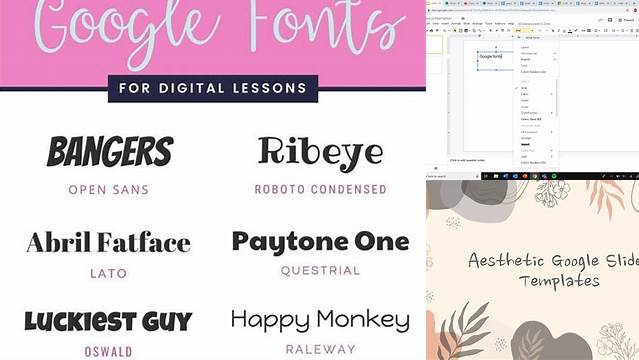
Aesthetic Fonts For Google Slides: Elevate Your Presentation
Hey guys! Ever feel like your Google Slides presentations are missing that certain something? You've got the content down, the data is solid, but the overall look just isn't popping? Well, you're definitely not alone! A huge part of making a presentation visually appealing is choosing the right fonts. Forget those boring, default options – we're diving into the world of aesthetic fonts that will instantly elevate your slides from drab to FAB! Think of fonts as the clothes your presentation wears; they set the tone, convey personality, and can even influence how your audience perceives your message. A sleek, modern font can signal professionalism and innovation, while a playful, handwritten font might be perfect for a more casual and creative presentation. The key is to find fonts that not only look great but also align with your content and brand. Trust me, selecting the right aesthetic fonts can make a world of difference, transforming your slides into a visual masterpiece that captivates your audience and leaves a lasting impression. We'll explore a range of options, from elegant serifs to clean sans-serifs and even some fun display fonts, so you can find the perfect fit for your next presentation. So, buckle up and get ready to discover a treasure trove of amazing fonts that will make your Google Slides shine! Remember, presentation design is an art, and fonts are your essential tools. Let’s get creative and transform your slides into something truly special. Finding the perfect font can be like finding the perfect pair of shoes for an outfit – it just ties everything together. So, ditch the basic fonts and let's explore the world of aesthetics to make your Google Slides stand out from the crowd. Let’s face it, in a world filled with information overload, grabbing and holding your audience's attention is crucial. And while compelling content is king, the visual presentation is the queen that helps make it reign! Aesthetic fonts play a vital role in this, adding a layer of visual interest and personality that keeps your viewers engaged.
Why Font Choice Matters in Google Slides
Font choice in Google Slides matters immensely, guys! It's not just about making words appear on a screen; it's about communication on a deeper level. Think of fonts as the voice of your presentation – they have a tone, a personality, and they contribute significantly to the overall message you're trying to convey. Imagine you're presenting on a cutting-edge tech topic using a clunky, old-fashioned font – it just wouldn't mesh, right? The font would actively detract from your message, making your presentation look dated and unprofessional. On the flip side, a sleek, modern font can instantly elevate your presentation, signaling innovation and sophistication. But it's not just about aesthetics, though that's a big part of it! Readability is also paramount. If your audience is squinting and struggling to decipher your text, they're going to miss the crucial information you're sharing. That’s why it’s essential to choose fonts that are not only visually appealing but also clear and easy to read, especially when projected on a larger screen. Consider the context of your presentation as well. Are you presenting to a formal business audience? A fun, casual group? Your font choices should reflect the tone and style appropriate for the setting. A playful, handwritten font might be perfect for a creative workshop, but it wouldn't be suitable for a board meeting. Furthermore, fonts contribute to your brand identity. If you're presenting on behalf of a company or organization, using fonts that align with your brand guidelines will help reinforce your brand image and create a cohesive look and feel. Consistency is key here – using the same fonts throughout your presentation and across all your marketing materials will build brand recognition and trust. So, when you're putting together your Google Slides, don't just grab the first font that catches your eye. Take the time to carefully consider your audience, your message, and your brand, and choose fonts that will help you communicate effectively and make a lasting impression. The right font choice can transform a good presentation into a great one. Remember, your slides are a visual representation of your ideas, and fonts are the brushstrokes that bring them to life.
Top Aesthetic Font Categories for Google Slides
Okay, let's dive into the top aesthetic font categories you can use to seriously upgrade your Google Slides! We've got a whole spectrum of styles to explore, from the classic elegance of serifs to the clean lines of sans-serifs, and even some fun and funky display fonts for when you want to make a statement. Finding the perfect font is like choosing the right instrument for a song – it sets the mood and enhances the overall experience. Let's break down some key categories: First up, we have Serif Fonts. These fonts are characterized by the small decorative strokes, or "serifs," at the ends of the letters. Serif fonts often convey a sense of tradition, authority, and sophistication. Think of them as the formal wear of the font world. In Google Slides, serif fonts are excellent for headings and body text when you want to create a polished, professional look. Some popular serif font choices include Lora, Playfair Display, and Merriweather. Next, we have Sans-Serif Fonts. These fonts are the modern, minimalist counterparts to serif fonts. They lack the decorative serifs, giving them a clean, streamlined appearance. Sans-serif fonts are often associated with clarity, simplicity, and modernity. They're incredibly versatile and work well in a variety of presentation contexts. Some top sans-serif fonts for Google Slides are Montserrat, Open Sans, and Lato. Then there are the Display Fonts. This is where you can really let your personality shine! Display fonts are designed to be eye-catching and attention-grabbing. They come in a wide range of styles, from bold and geometric to playful and whimsical. Display fonts are best used sparingly, for headings and titles, as they can be difficult to read in large blocks of text. For some fun options, try Oswald, Bebas Neue, or Lobster. Finally, we have Handwritten and Script Fonts. These fonts mimic the look of handwriting, adding a personal and creative touch to your slides. They're perfect for presentations that need a bit of warmth and authenticity. However, like display fonts, handwritten fonts should be used sparingly, as they can be challenging to read if overused. Cool handwritten and script fonts to try include Pacifico, Amatic SC, and Dancing Script. Remember, the key to choosing the right font is to consider the overall tone and message of your presentation. Experiment with different categories and combinations to find what works best for you. Don't be afraid to mix and match, but always prioritize readability and consistency. The right font combination can be like a perfectly harmonized melody – it just sounds right.
Specific Font Recommendations for Google Slides
Alright, let's get down to specifics! I'm going to share some of my favorite aesthetic font recommendations for Google Slides, broken down by category, so you can start experimenting and find the perfect fonts for your next presentation. Think of this as your font shopping list – a curated selection of gems that will instantly elevate your slides. In the Serif category, we have a few standouts. First up is Lora. Lora is a well-balanced serif font with a contemporary feel. It's incredibly readable, making it a great choice for body text. Its elegant curves add a touch of sophistication without being overly formal. Next, we have Playfair Display. This font is a true showstopper! Playfair Display is a high-contrast serif that exudes elegance and refinement. It's perfect for headings and titles, adding a touch of drama to your slides. However, it's best used sparingly in body text, as its delicate strokes can be difficult to read at smaller sizes. Then there's Merriweather. Merriweather is a sturdy, reliable serif font designed specifically for on-screen reading. It has a slightly condensed letterform and a tall x-height, making it highly legible even at small sizes. It's a fantastic choice for body text, especially in longer presentations. Moving on to the Sans-Serif category, we have some equally amazing options. Montserrat is a modern, geometric sans-serif that's become incredibly popular in recent years. It's clean, versatile, and works well in both headings and body text. Its bold weight makes it particularly effective for headlines, while its regular weight is perfect for body copy. Next, let's discuss Open Sans. Open Sans is a classic sans-serif that's known for its neutrality and readability. It's a fantastic all-around font that works well in virtually any presentation context. Its open forms and clean lines make it easy on the eyes, even for extended reading. And lastly, we have Lato. Lato is a slightly rounded sans-serif that has a warm, friendly feel. It's highly legible and works well in a variety of sizes, making it a versatile choice for both headings and body text. Its subtle curves add a touch of personality without sacrificing clarity. Now, let's explore some Display fonts for those moments when you want to make a statement. Oswald is a bold, condensed sans-serif that's perfect for headlines and titles. Its strong, geometric forms command attention and add a touch of modernity to your slides. Next is Bebas Neue. Bebas Neue is another popular sans-serif display font that's known for its tall, narrow letterforms. It's a great choice for creating a clean, impactful look, especially in headings and subheadings. Then there's Lobster, which is a script-style display font that adds a touch of retro charm to your presentations. It's perfect for creating a playful, vintage vibe, but should be used sparingly as it can be challenging to read in large blocks of text. Finally, for those occasions when you want to add a personal touch, let's explore some Handwritten and Script fonts. Pacifico is a flowing, cursive script font that has a relaxed, beachy vibe. It's perfect for adding a touch of personality to headings and titles. Amatic SC is a playful, hand-drawn sans-serif font that's great for creating a casual, friendly feel. It's best used in headings and subheadings, as its informal style can be distracting in body text. And then we have Dancing Script, a modern cursive font that's elegant and feminine. It's perfect for adding a touch of sophistication to your slides, but should be used sparingly to maintain readability. Remember, guys, the key to choosing the right fonts is to experiment and find what works best for your specific presentation. Don't be afraid to try different combinations and see what resonates with your audience. And most importantly, always prioritize readability!
Tips for Pairing Fonts in Google Slides
Okay, so you've got a bunch of amazing fonts to choose from, but how do you put them together to create a cohesive and visually appealing presentation? Pairing fonts can feel like a bit of an art, but don't worry, I'm here to give you some killer tips that will help you master the art of font pairing in Google Slides! Think of font pairing as a dance – you want the fonts to complement each other, not clash. The key is to create contrast and visual interest while maintaining a sense of harmony and balance. First and foremost, stick to a maximum of two or three fonts in your presentation. Too many fonts can make your slides look cluttered and chaotic. It's best to choose one font for headings and another for body text. If you want to add a third font, use it sparingly for accents or callouts. A classic and reliable approach is to pair a serif font with a sans-serif font. The contrast between the traditional serifs and the clean lines of the sans-serif creates a visually pleasing effect. For example, you could pair Playfair Display (a serif) for headings with Montserrat (a sans-serif) for body text. Or you could use Lora (a serif) for body text and Open Sans (a sans-serif) for headings. The possibilities are endless! Another tip is to consider the mood and tone of your presentation when pairing fonts. If you're creating a formal presentation, you might want to stick to classic serif and sans-serif combinations. If you're going for a more creative or playful vibe, you can experiment with display fonts or handwritten fonts, but use them sparingly and always pair them with a more readable font for body text. Pay attention to the weights and styles of your fonts. If you're using the same font for headings and body text, try using different weights (e.g., bold for headings, regular for body text) to create visual hierarchy. You can also use italics to add emphasis or contrast. Another important factor to consider is readability. Make sure that your font pairings are easy to read, both on screen and when printed out. Avoid pairing fonts that are too similar in appearance, as this can make your slides look monotonous. And always make sure that your font sizes are large enough for your audience to read comfortably. Don't be afraid to experiment and try different combinations. There's no one-size-fits-all formula for font pairing. The best way to find what works for you is to play around with different options and see what you like. Use online resources like FontPair or Typewolf to get inspiration and see how different fonts look together. Lastly, and this is crucial, be consistent. Once you've chosen your fonts, stick with them throughout your entire presentation. Consistency is key to creating a professional and polished look. The same font pairing on every slide builds a cohesive visual experience for your audience. So, go ahead, experiment, and have fun with font pairing! With a little practice, you'll be creating beautiful and engaging Google Slides in no time. Remember, the right font pairing can make all the difference in how your presentation is perceived.
Final Thoughts on Aesthetic Fonts for Google Slides
So, there you have it, guys! A deep dive into the world of aesthetic fonts for Google Slides. I hope this guide has inspired you to ditch those boring default fonts and start experimenting with some new and exciting options. Remember, font choice is a powerful tool that can dramatically impact the look and feel of your presentations. By selecting the right fonts, you can enhance your message, engage your audience, and create a lasting impression. Think of your fonts as the finishing touches on a masterpiece – they're what bring everything together and make your presentation truly shine. Choosing fonts for your Google Slides is about more than just aesthetics; it's about effective communication. The fonts you select should reflect the tone and style of your content, and they should be easy to read and understand. A well-chosen font can make your presentation more professional, more engaging, and more memorable. Don't be afraid to step outside your comfort zone and try something new. The world of typography is vast and varied, and there are so many amazing fonts out there just waiting to be discovered. Experiment with different styles, weights, and combinations to find what works best for you and your presentations. And remember, readability is always paramount. No matter how beautiful a font may be, it's not the right choice if your audience can't read it. Choose fonts that are clear and legible, especially for body text. As we've discussed, pairing fonts is an art form in itself. Sticking to a maximum of two or three fonts per presentation is important, and creating contrast between fonts while maintaining harmony is key. Classic combinations like serif and sans-serif pairings often work well, but don't be afraid to experiment with different styles and weights to find what you like best. I hope the specific font recommendations I've shared have given you some inspiration. Remember, fonts like Lora, Playfair Display, Montserrat, Open Sans, and many others can be fantastic choices for Google Slides. And don't forget about display and handwritten fonts for those moments when you want to add a touch of personality and flair. Ultimately, the best fonts for your Google Slides are the ones that help you communicate your message effectively and engage your audience. So, take the time to explore your options, experiment with different fonts, and find what works best for you. With the right fonts, your Google Slides presentations will be unstoppable! Go forth and create some visually stunning and impactful presentations, guys! The power is in your hands (or should I say, your fonts!).